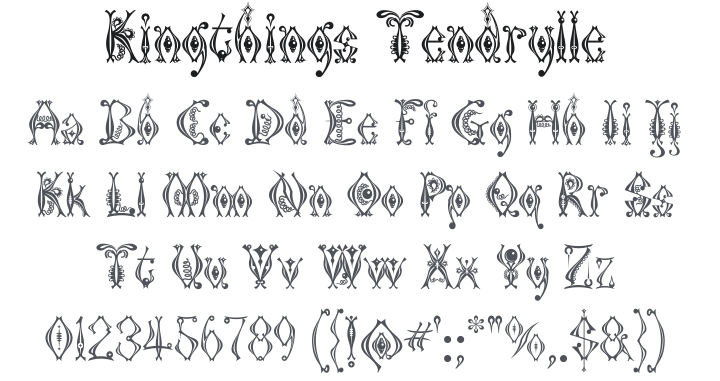
Kingthings Tendrylle Font
About Kingthings Tendrylle
I seem to be making more organic fonts at the moment - I seem to be surrounded by green things which is a little odd as I live in the middle of a (small) city. I also grow plants on my kitchen windowsill - whatever comes my way - at present, my favourites are insectivorous plants... There are also all the beads and necklaces that are donated to Oxfam - the charity for which I work... One thing leads to another - and I end up with yet another decorated font. I Am Unrepentant!!! HaHaHaHa!.. (Oh dear, oh dear).